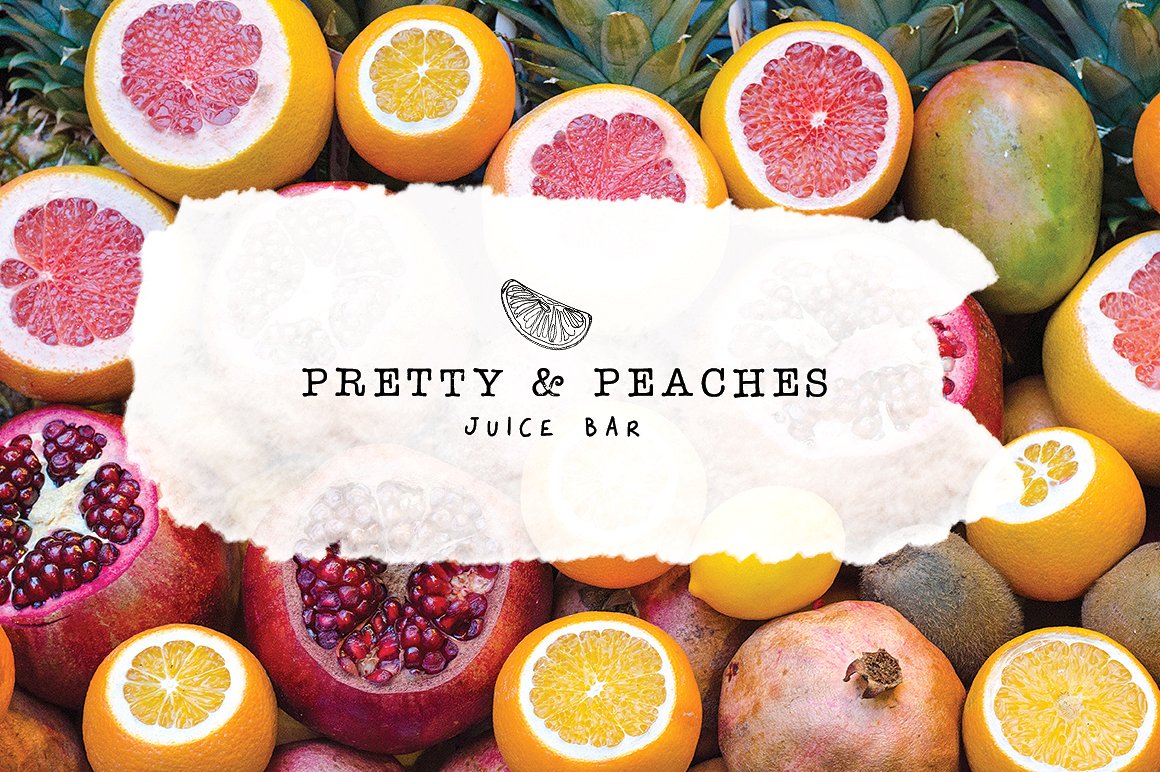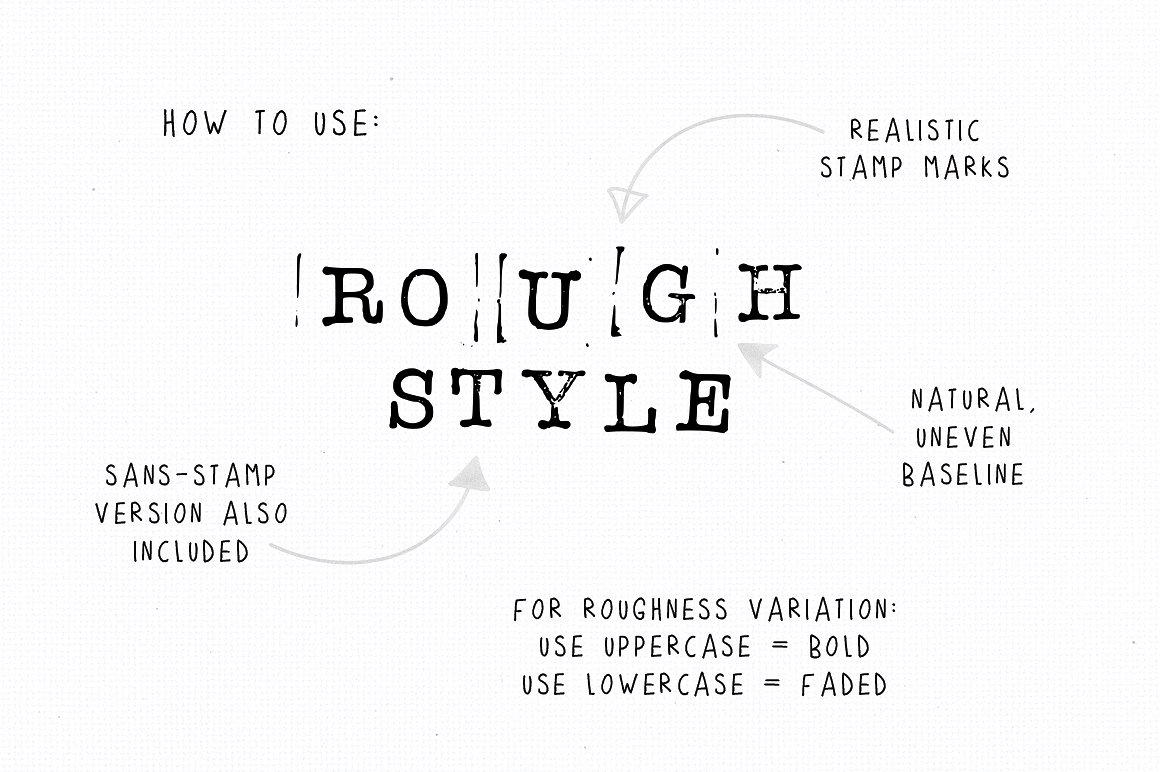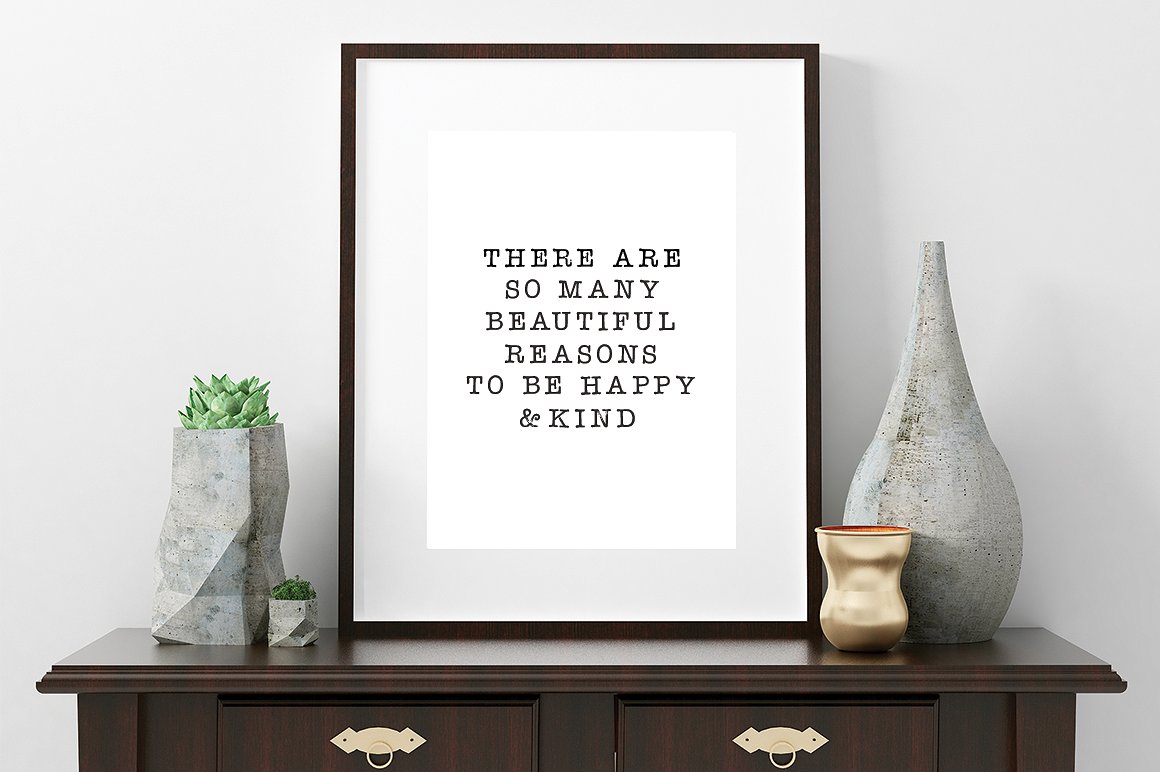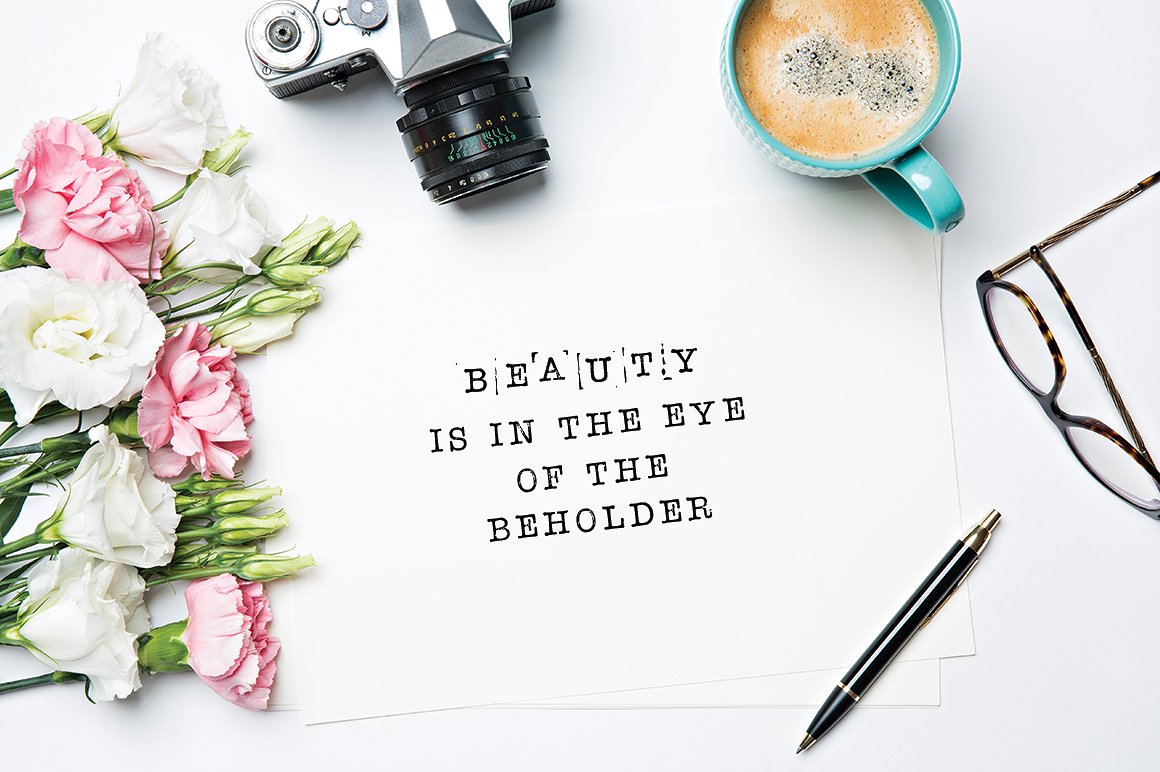
Introduction to Perfect Thoughts Font
Perfect ThoughtsTypewriter Font is fun, classic and oh so cool.
This pack features three fonts; A version that includes real, ink-made stamp marks, a second that is a straighter and more serious font and finally a funky, irregular baseline font that will get your design jumpinโ .